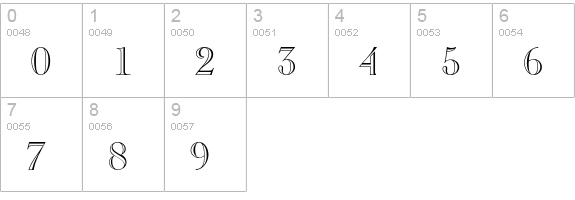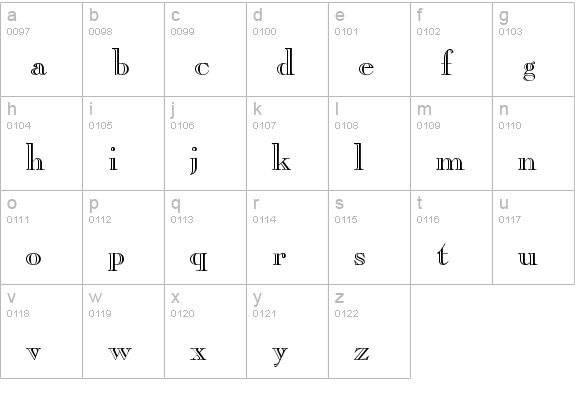
Caslon Open Face Font Details
Caslon Open Face is a classic and elegant serif font that exudes sophistication and charm. Its intricate details and delicate lines make it perfect for adding a touch of vintage flair to any design project. The open, airy design of Caslon Open Face gives it a timeless appeal that is both refined and versatile. The font features graceful letterforms with a distinct old-world charm, making it ideal for projects that require a touch of tradition and elegance. Caslon Open Face is well-suited for a variety of applications such as branding, invitations, packaging, and editorial design. Best of all, Caslon Open Face is available for free download at FontsMarket.com, allowing you to easily access this beautiful font and incorporate it into your creative projects without any cost. Enhance your designs with the timeless beauty of Caslon Open Face and add a touch of sophistication to your work.